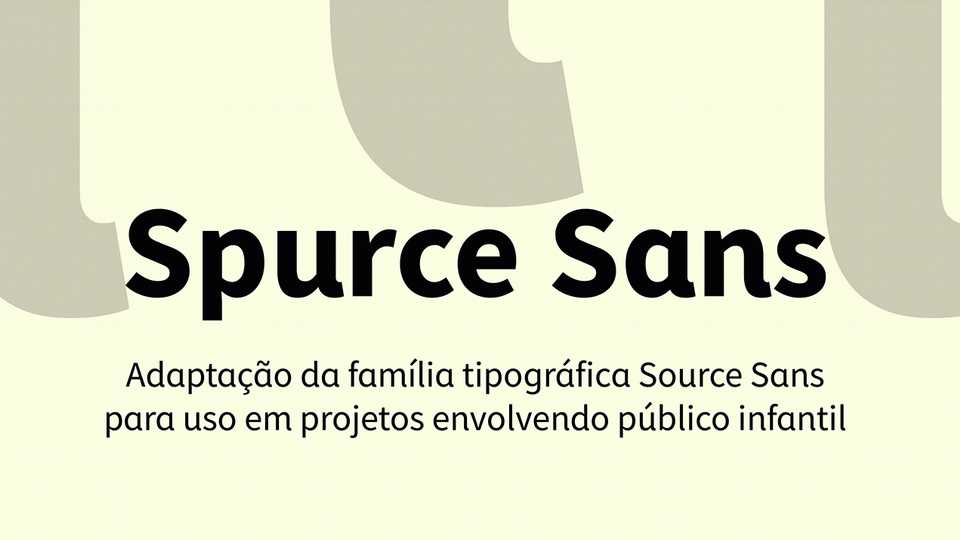
Download Spurce Sans typeface, a sans serif font family in six weights with corresponding Italics, based on the Source Sans with more humanist-influenced forms.
Designer: Nícholas Auler